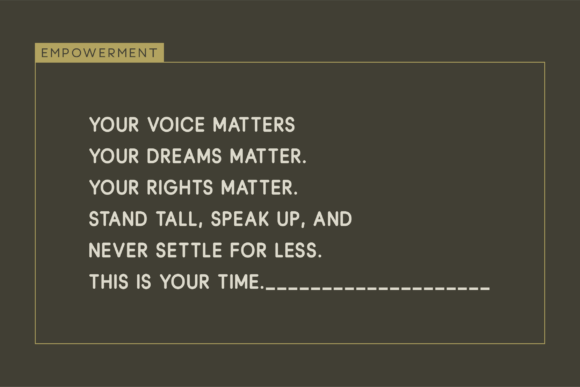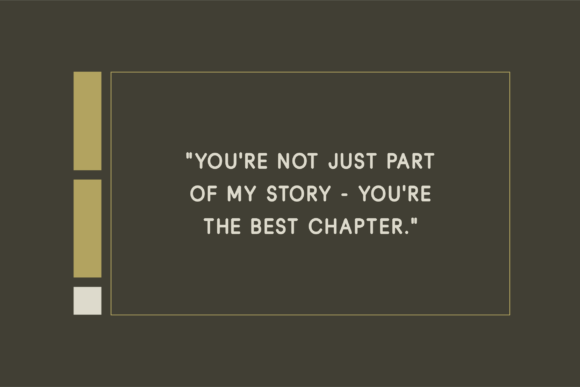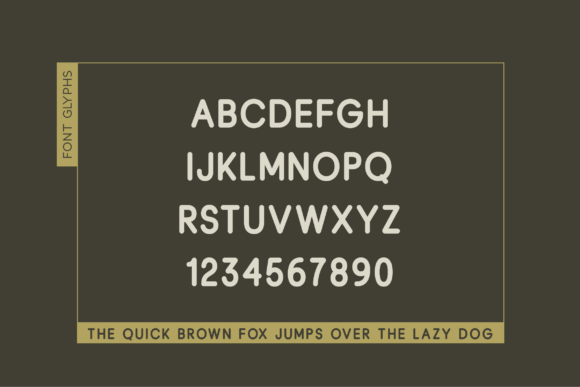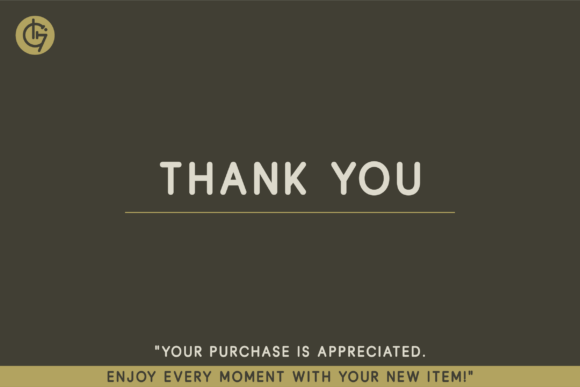
Introduction to Milkyon Font
Have you ever stumbled upon the perfect font for a creative project, only to realize it’s missing that one crucial element that sets it apart? For designers, finding the perfect font can be a tedious yet thrilling quest. Imagine discovering a font that exudes an air of quirky elegance, effortlessly elevating your designs to the next level.
Enter the enchanting Milkyon Font, a one-of-a-kind all caps font that’s sure to captivate your senses. With its simplistic yet smooth design, Milkyon Font is a game-changer for designers looking to add a touch of whimsy to their creations. Whether you’re designing invitations, crafting social media graphics, or working on a high-quality project, Milkyon Font is a valuable design resource that’s sure to breathe life into your projects.
Key Features of Milkyon Font
- High-quality, professional font suitable for creative projects and design resources
- Unique, modern design style with a clean and minimalist aesthetic, perfect for modern creative projects
Honest Review: Milkyon Font
As a designer, I’m always on the lookout for high-quality design resources that can elevate my creative projects. Recently, I came across the Milkyon Font, and I’m excited to share my honest review with you.
What works well: ✨ I love the unique, modern aesthetic of the Milkyon Font. It’s perfect for creating eye-catching headings and titles in any design project. The font also comes with a transparent background, which makes it easy to use in combination with other design elements. Plus, it’s a free download, which is always a bonus!
- Unique, modern aesthetic
Any limitations: ⚠️ While the Milkyon Font is a great addition to any design toolkit, it may not be suitable for projects that require a more classic or traditional font style. Additionally, the font may not be as versatile as some other popular font options.
Overall, I’m impressed with the Milkyon Font and would definitely recommend it to designers who are looking for a modern, high-quality font to use in their creative projects.
Common Use Cases for Milkyon Font
The Milkyon Font is ideal for creating high-quality designs for various industries, including fashion, beauty, and lifestyle. It’s also perfect for creating social media graphics, presentations, and marketing materials.